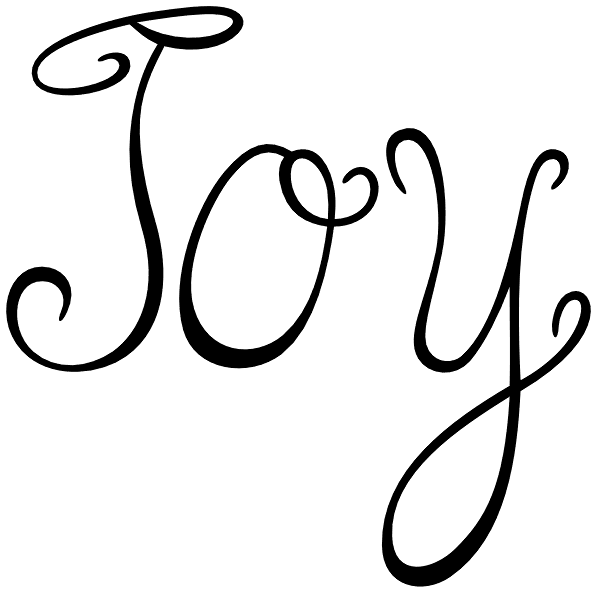
Joy
Joy is sure to spice up your text life! She overflows with style and personality. She loves to be center stage on headlines, flirting with her readers eyes. There are over 100 ligatures, creating words with some letters connecting and others...